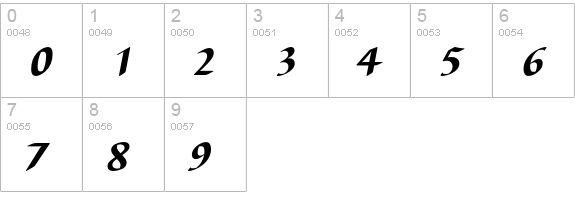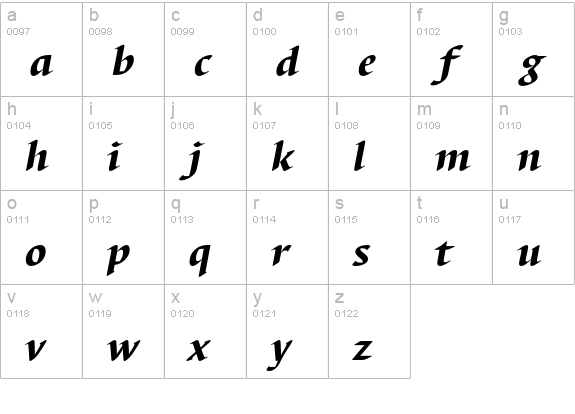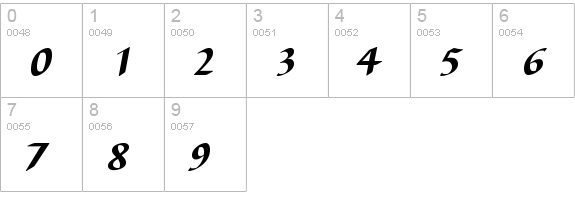
Barbedor T Heavy Italic is a heavy, high-impact, italic variant in the Barbedor typeface family \xE2\x80\x94 well suited to high-impact headlines, posters, and display advertising.
Barbedor T Heavy Italic is a bold and elegant font that exudes a sense of strength and sophistication. Its slanted design adds a touch of dynamism to any text, making it perfect for headlines, titles, and branding materials. The sharp serifs and distinctive letterforms give this font a unique and memorable appearance that is sure to make a statement. What sets Barbedor T Heavy Italic apart is not only its striking aesthetic, but also the fact that it is available for free download at FontsMarket.com. This means that you can easily access and use this impressive font for your personal and commercial projects without any cost involved. Don't miss out on the opportunity to enhance your designs with the bold and impactful Barbedor T Heavy Italic font today!